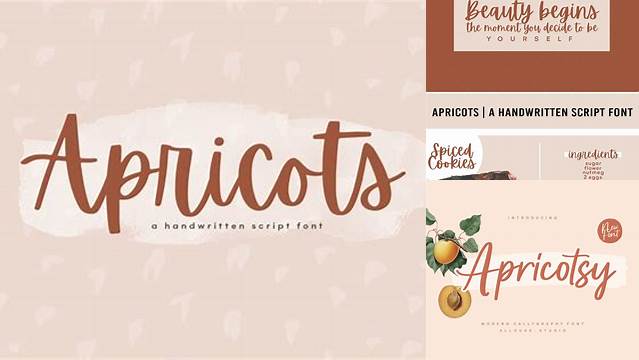
Apricots Font: Free Handwritten Script For Your Designs
Hey there, design enthusiasts! Are you looking to add a touch of elegance and personality to your projects? Then you're in the right place! Today, we're diving into the wonderful world of the Apricots handwritten script font, a beautiful typeface that's perfect for a variety of creative endeavors. And the best part? You can snag this gem with a free download in the popular .ttf (TrueType Font) format! Get ready to elevate your designs with this charming font. Let's get started!
Apricots Font: Unleashing Your Creative Potential
Apricots handwritten script font isn't just any font; it's a statement. It's a way to infuse your designs with a personal touch, a sense of warmth, and a whole lot of style. Whether you're a seasoned designer or just starting out, this font is incredibly versatile and easy to use. It's like having a secret weapon in your design arsenal, ready to transform your projects from ordinary to extraordinary. Think about it: the right font can completely change the mood and message of your work. It can evoke feelings, tell a story, and grab the attention of your audience in a way that words alone can't. That's the power of a well-chosen font, and Apricots brings that power to your fingertips with its elegant handwritten style. The beauty of this font lies in its ability to mimic the fluidity and naturalness of real handwriting. Each letter seems to dance across the page, creating a sense of movement and visual interest. This makes it perfect for projects where you want to convey a sense of authenticity, creativity, and a personal touch. Imagine using it for invitations, greeting cards, logos, branding materials, social media graphics, and so much more. The possibilities are truly endless! And because it’s a script font, it adds a touch of sophistication and charm that can instantly elevate your designs. It’s like adding a touch of je ne sais quoi to everything you create.
This font is not just for professional designers, though. If you're a hobbyist, a blogger, or someone who just loves to create, the Apricots handwritten script font can be a game-changer. Think about creating beautiful quotes for your Instagram feed, designing personalized gifts, or even crafting your own wedding invitations. The versatility of this font makes it suitable for a wide array of projects, and the fact that it's available as a free download makes it even more accessible. You don't need to spend a fortune to achieve professional-looking results. All you need is this fantastic font and a little bit of creativity. With a bit of imagination, you can transform everyday projects into something truly special. The Apricots font adds a personal touch, which can turn a simple design into something memorable and meaningful. And with the free download option, you can explore your creativity without any financial commitment. It's a win-win! Whether you are crafting a logo for your small business or designing a personalized card for a loved one, the Apricots font can help you achieve the desired aesthetic. The natural flow and elegant curves of the font create a sense of visual harmony. The beauty of this font is that it doesn't require any advanced design skills to use it effectively. It's user-friendly and works seamlessly with most design software. So, if you're looking to add a touch of elegance and personalization to your projects, the Apricots handwritten script font is definitely worth exploring. Get ready to unleash your creativity and let your designs shine with this beautiful typeface!